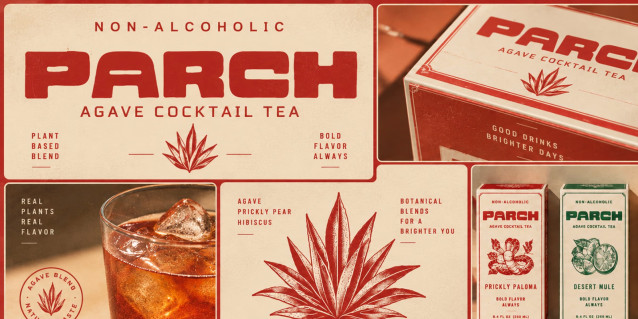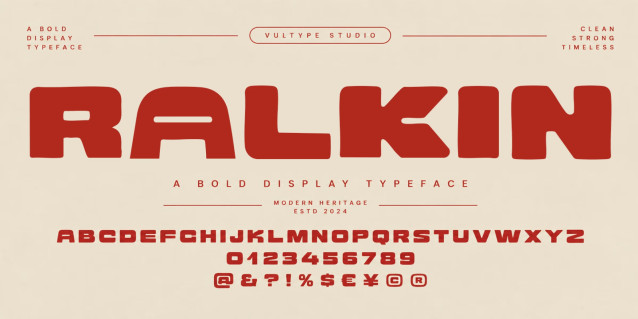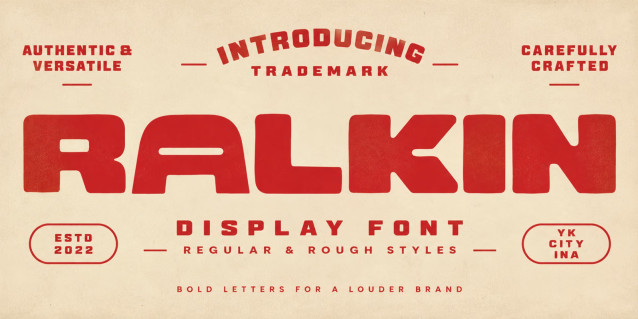
Ralkin Font
RALKO is a bold and powerful display typeface designed to make a strong visual impact. Featuring chunky geometric letterforms, rounded corners, and distinctive cut-out details, RALKO brings a confident retro-industrial character to headlines, branding, posters, packaging, and apparel design.
The typeface combines a solid vintage aesthetic with a modern display approach, making it versatile enough for both classic and contemporary projects. Its heavy weight gives typography a strong presence, while the unique letter construction adds personality and memorability.
RALKO includes Regular and Rough styles, allowing designers to choose between a clean, polished appearance and a textured, handcrafted look.